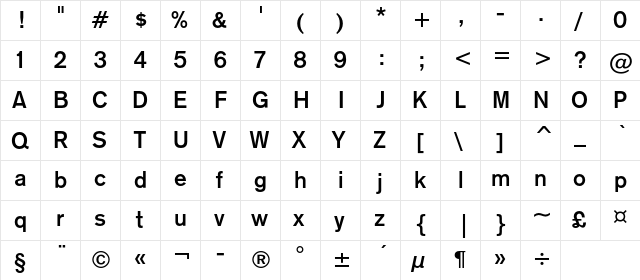
Gothic725BoldC BT Regular
Design Context for Gothic725BoldC BT Typeface
Gothic725BoldC BT takes a clean, functional approach — its unadorned letterforms prioritise legibility and work reliably across screen and print environments. Its bold stroke weight gives it real presence on the page.
Well-suited to navigation labels, product packaging, and anywhere legibility at scale is essential.
Font Pairing: Use Gothic725BoldC BT for headlines alongside a lighter-weight sans or serif for body copy to establish clear visual hierarchy.
Pro Tip: Use Gothic725BoldC BT for UI labels, navigation, and short-form body copy where clean legibility is the priority.